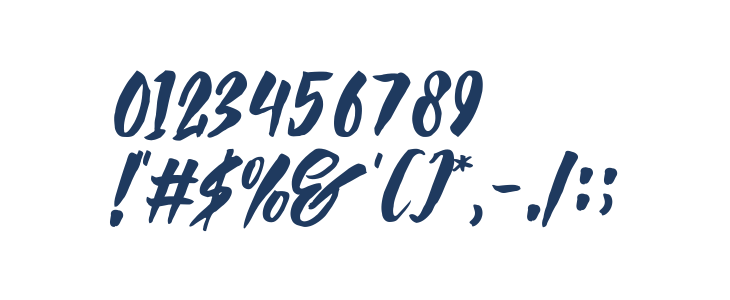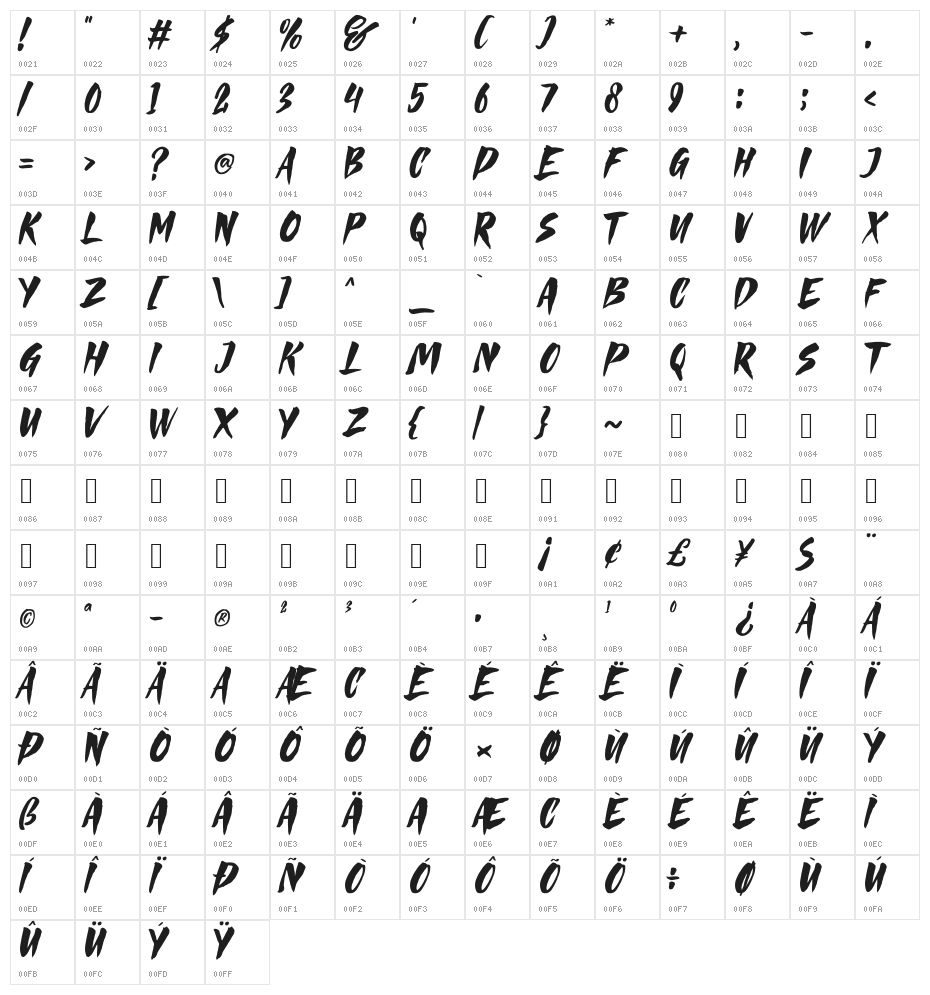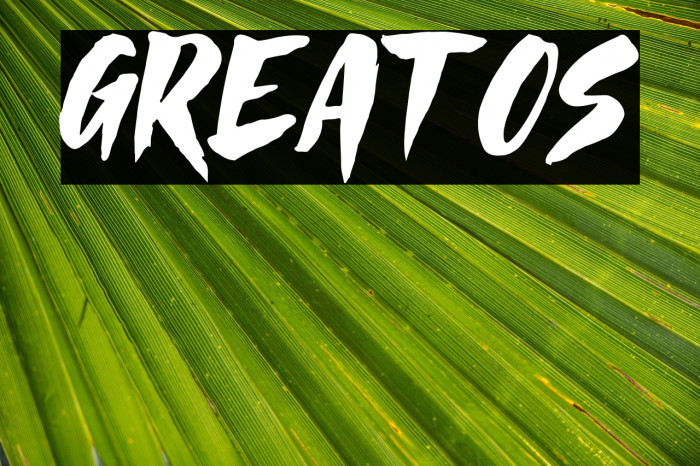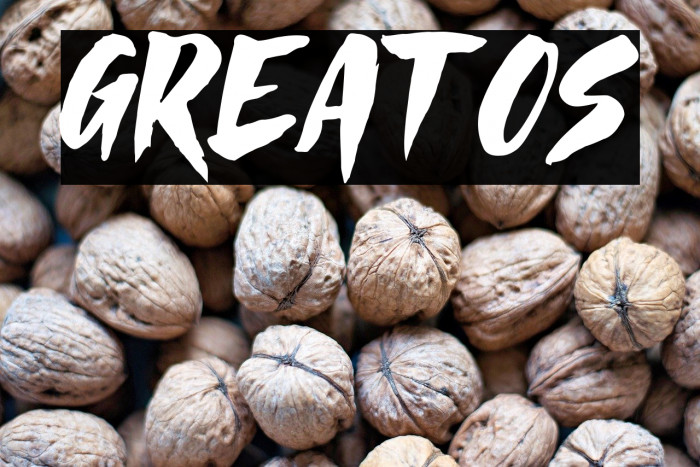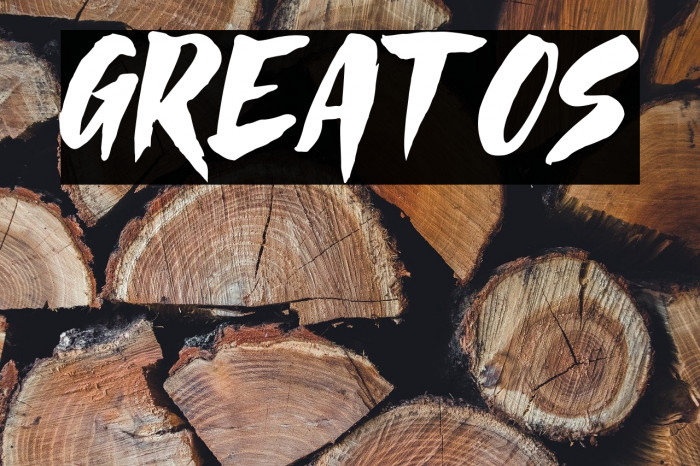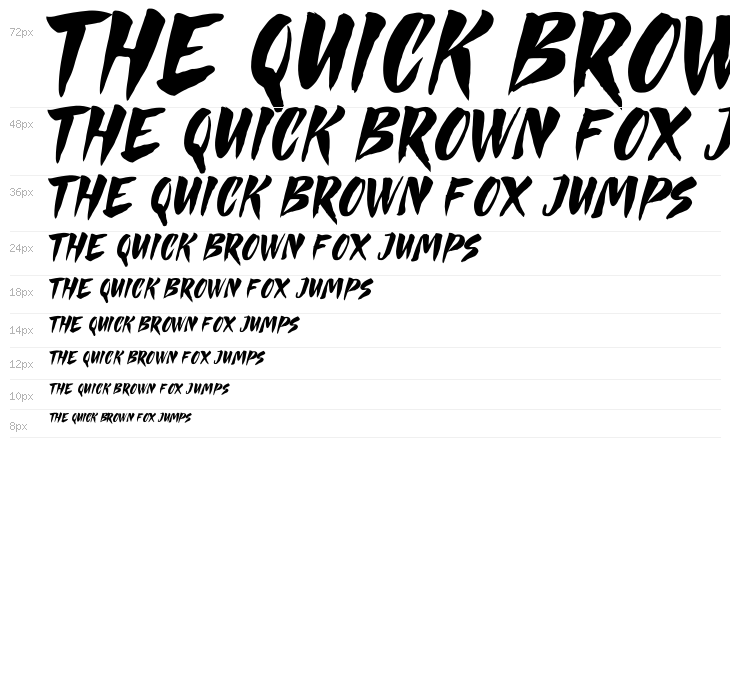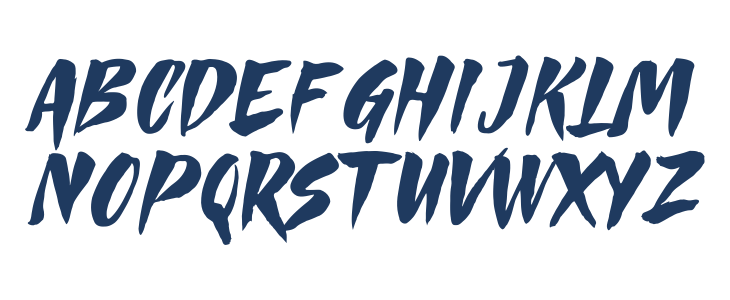
Greatos Font
Greatos Description
This font exudes a bold and energetic style, characterized by its dynamic brush strokes and expressive forms. The uppercase and lowercase letters maintain a consistent flow, with each character exhibiting a sense of movement and flair. The numbers and special characters are equally bold, complementing the overall aesthetic with their striking presence. The font's design is reminiscent of hand-painted signage, offering a sense of authenticity and creativity. Its thick strokes and slightly irregular shapes give it a unique personality, making it stand out in any design context.